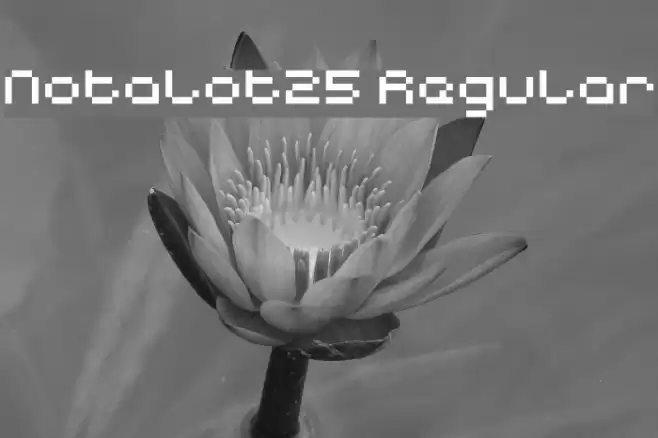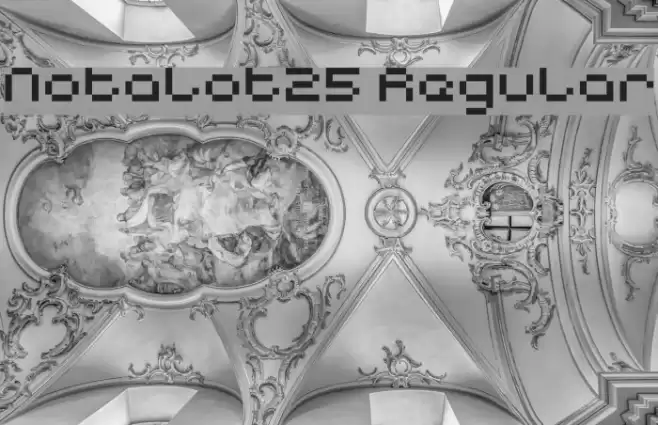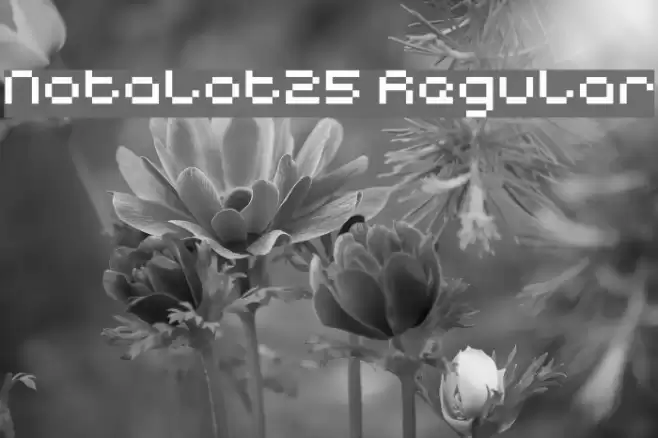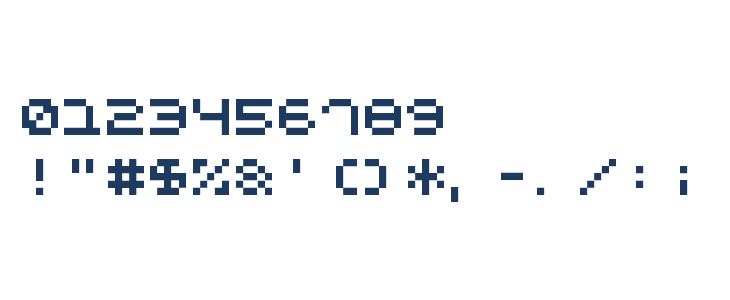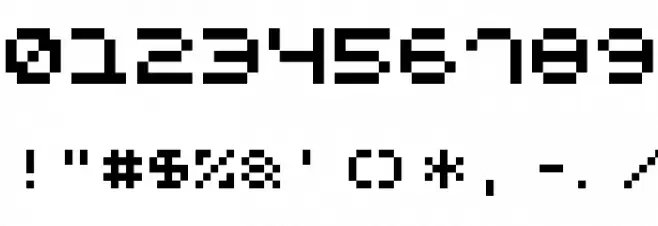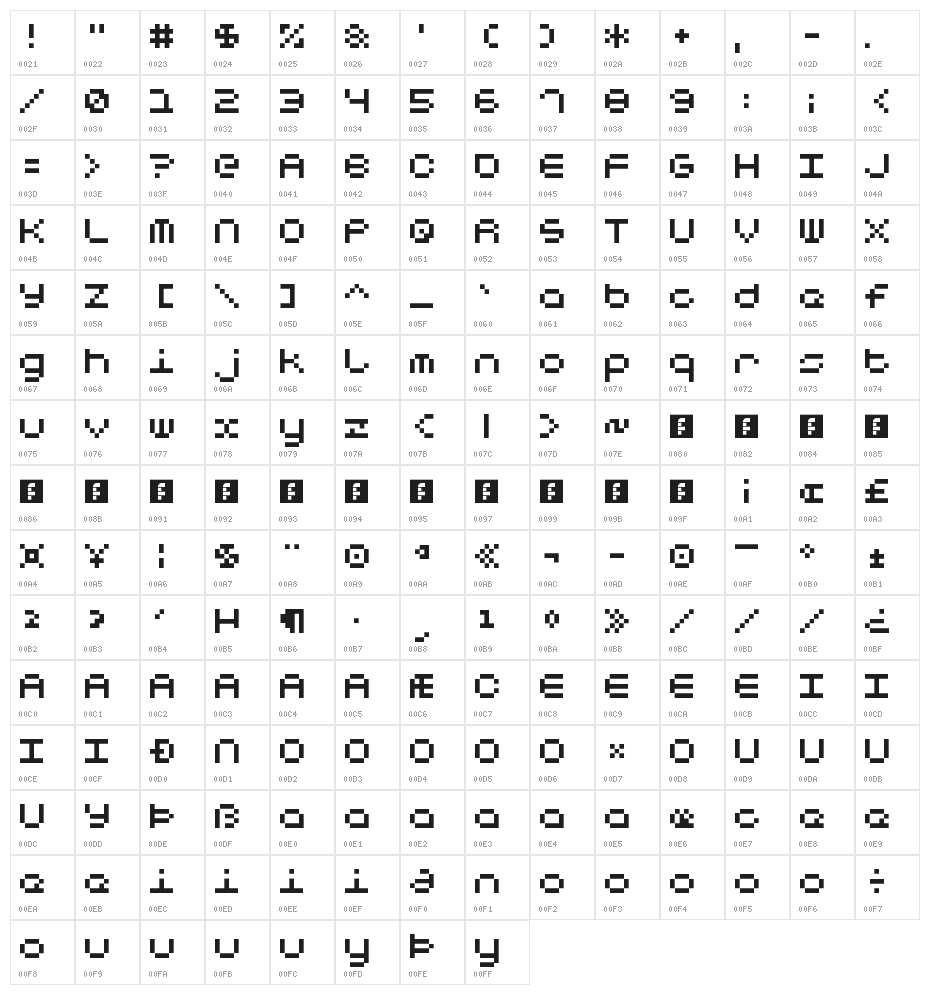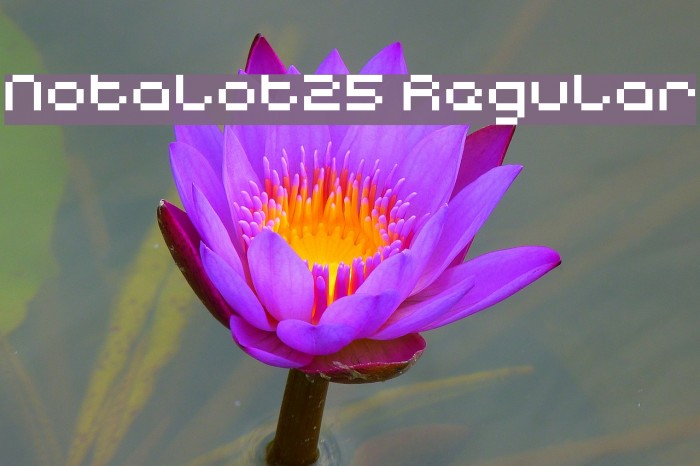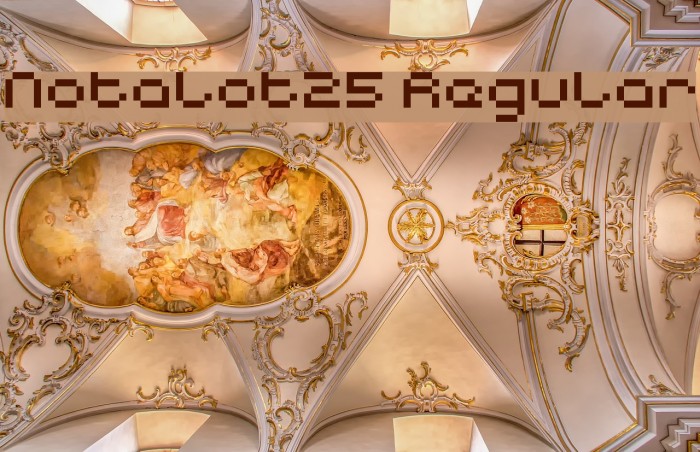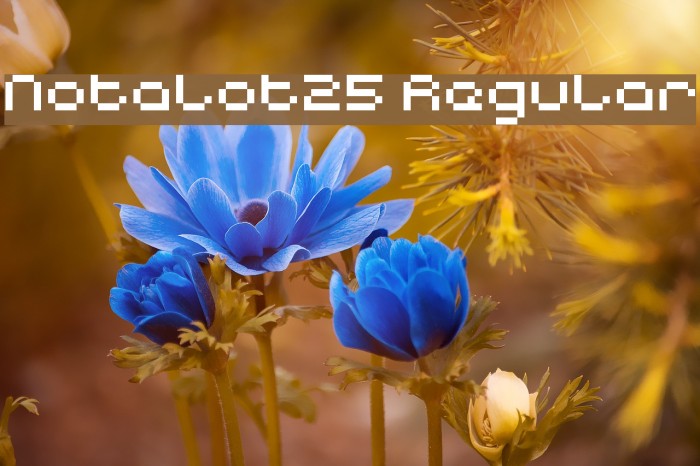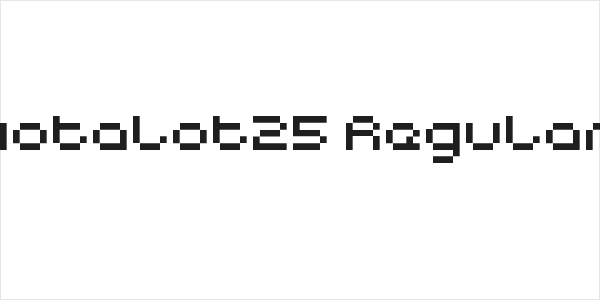
Notalot25 Regular Font
Notalot25 Regular Description
This font features a pixelated, blocky design reminiscent of early digital displays and retro video games. Each character is constructed with a grid-like precision, giving it a distinctly digital and geometric appearance. The uniformity in the height and width of the characters creates a cohesive and structured look, while the sharp edges and corners emphasize its digital roots. The font maintains a consistent weight throughout, ensuring readability even at smaller sizes. Its nostalgic aesthetic makes it ideal for projects that aim to evoke a sense of vintage technology or retro gaming culture.
A pixelated, blocky font with a retro digital aesthetic from Uncategorized fonts.
- Proposed Projects: Ideal for retro video game designs, digital art projects, tech-themed posters, and any creative work that seeks to capture a vintage digital feel.
- Overall Style: Vintage